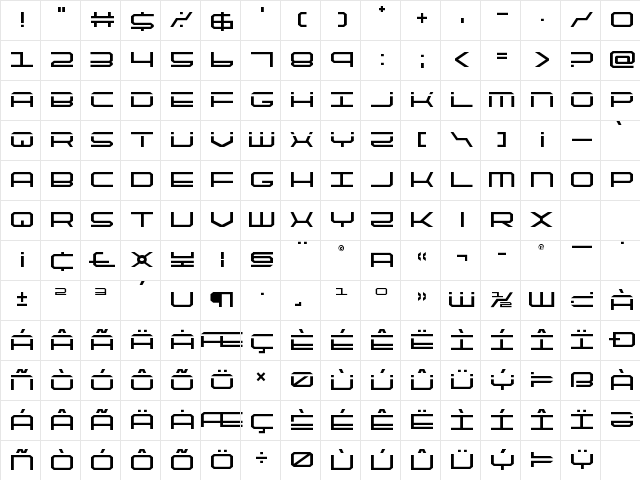
QuickTech Title has a distinctly futuristic character, with geometric precision and clean angles that feel at home in technology, gaming, and sci-fi contexts.
Pro Tip: Try QuickTech Title with generous letter-spacing in UI labels and navigation - the geometric forms benefit from room to breathe.